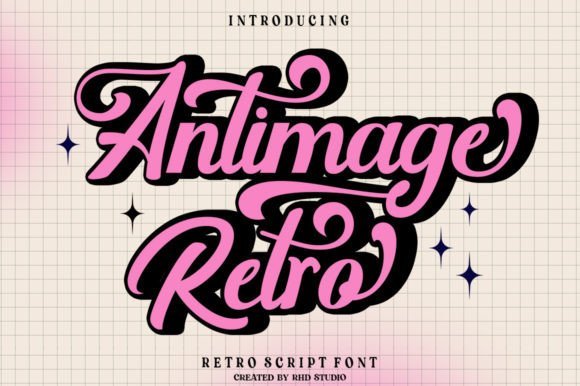
Timeless Elegance in a Font: Introducing Antimage Retro
Have you ever stumbled upon an old family photo or a vintage advertisement that instantly transports you to a bygone era? The nostalgia is palpable, and the charm of the past is impossible to resist. As designers, we often strive to evoke this same feeling in our work, and that’s where the Antimage Retro Font comes in.
This beautiful retro script font is designed to take your designs back in time while adding a modern twist. With its timeless elegance and numerous alternative characters, the Antimage Retro Font is a versatile tool for designers who want to infuse their work with a sense of the past. Whether you’re working on a project with a vintage theme or simply want to add a touch of nostalgia, this font is sure to deliver.
Antimage Retro Font Key Features
- Size: The font comes in 6 font styles, including Regular, Italic, Bold, Bold Italic, and two additional styles with distressed effects.
- Unique Characteristics: The Antimage Retro Font features a distressed, retro aesthetic with a vintage vibe, making it ideal for designs that require a nostalgic feel.
- Character Set: Includes a wide range of characters, including Latin, Cyrillic, and Greek alphabets, as well as various punctuation marks and symbols.
- Font Size Range: Suitable for use in a variety of font sizes, from small text to large headings, without losing its retro charm.
Antimage Retro Font Review
Overall, I think Antimage Retro Font is a unique and interesting font that could work well for specific design projects. Here are some of the things that I like about it:
- ✨ Distinctive retro aesthetic: The font has a clear vintage vibe that can add a lot of character to designs.
- ✨ Versatility: It can be used for a variety of purposes, from headings and titles to body text and even logos.
- ✨ Legibility: Despite its retro feel, the font is still relatively easy to read, especially in larger sizes.
- ⚠️ Limited language support: The font may not support all languages or character sets, which could be a problem for international designs.
- ⚠️ Not ideal for small text: The font can be a bit hard to read in small sizes, so it’s best to use it for larger text elements.
- ⚠️ May not be suitable for modern designs: The font’s retro aesthetic may not be the best fit for modern or minimalist designs.
Overall, I think Antimage Retro Font is a solid choice for designers who want to add a vintage touch to their projects. Just be aware of its limitations and use it judiciously.
The Antimage Retro Font is perfect for:
Creating vintage-inspired posters and advertisements.
Designing retro-themed social media graphics and flyers.
Adding a touch of nostalgia to your website or blog.